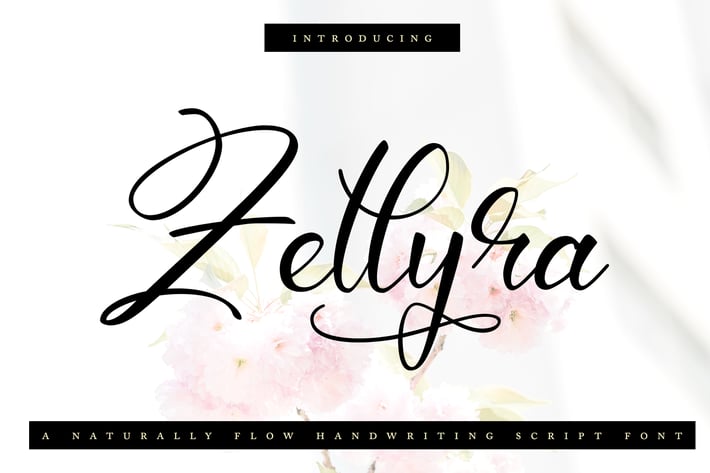
Zellyra | Naturally Flow Handwriting Script Font
Zellyra | Naturally Flow Handwriting Script Font with a calligraphy style, So beautiful on invitation like greeting cards, branding materials, business cards, quotes, posters, and more!